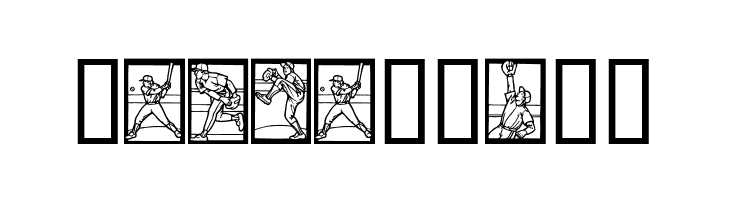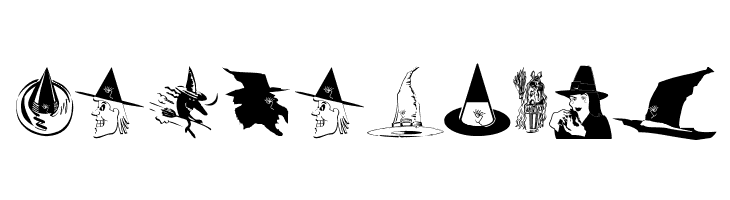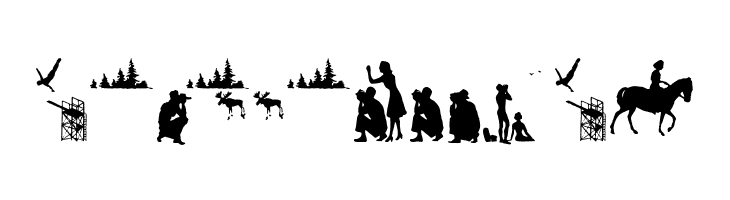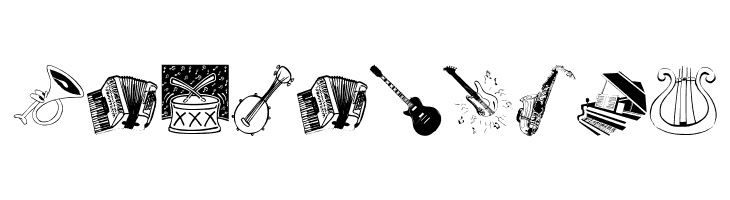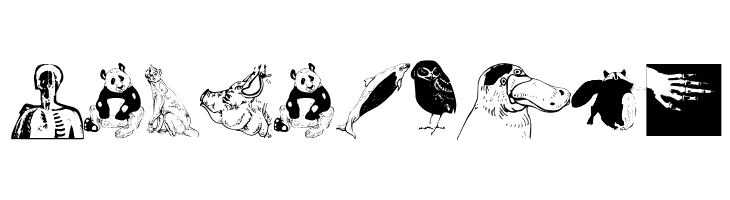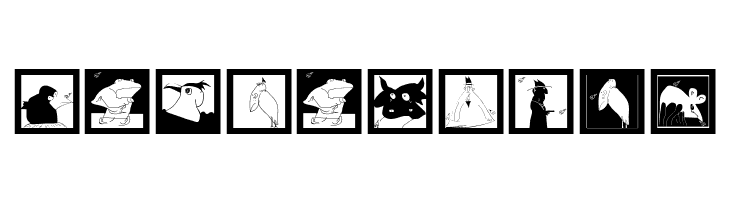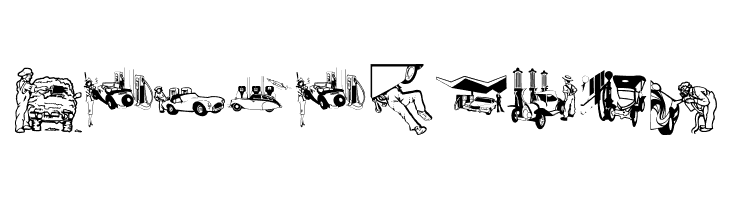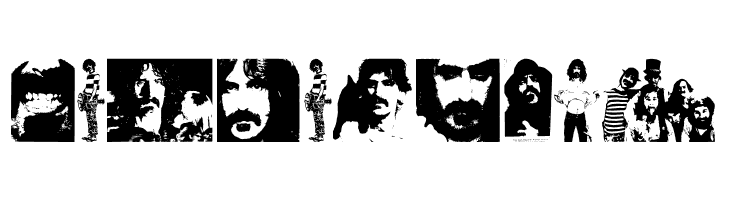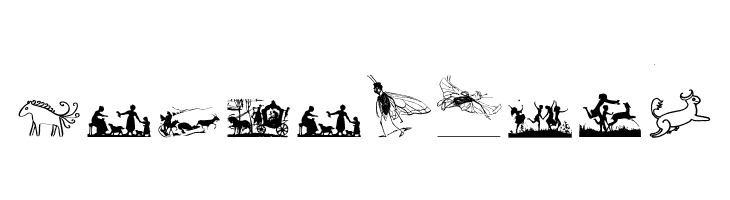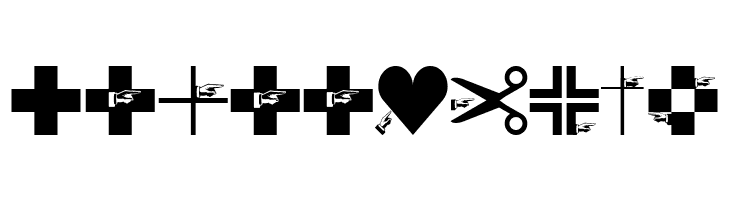
A pictorial font with baseball player illustrations for each character.
A playful, witch-themed pictorial display font.
A pictorial silhouette font with narrative scenes for each character.
A pictorial font featuring diverse animal and insect illustrations as glyphs.
Illustrative font with each character as a unique musical instrument drawing.
An illustrative, pictorial font with each character as a unique drawing.
Playful, illustrated font with animal-themed characters in bold black-and-white.
Illustrative, automotive-themed pictogram font.
A pictorial display font using musician silhouettes for each character.
A playful dingbat font with whimsical, storybook-style illustrations.
A decorative symbol font with diverse geometric and pictorial icons.
Cartoon gangster-themed pictorial display font.
Highly detailed, zigzag-shaded animal illustrations for decorative use.
Ornate font composed of intricate historical illustrations for each character.
A display font with each character depicted as a weapon or military-themed illustration.
A display font featuring unique bird illustrations for each character.
Cartoon illustration font with each glyph as a unique character drawing.
An eclectic dingbat font of abstract, geometric, and pictorial symbols.
Illustrative font featuring religious and spiritual iconography.
Ornamental dingbat set with abstract and animal motifs.
A playful, pictorial font with monkey and animal illustrations and geometric shapes.
Wedding-themed pictorial dingbat font with detailed illustrations.
Cartoonish, artist-themed pictorial font with each character as a unique illustration.
Whimsical fantasy-themed pictorial font with creature silhouettes.
Illustrative, story-driven font with biblical and ancient motifs.
Woodcut-style pictorial dingbat font with detailed illustrations.
Animal-themed decorative font with each glyph as a unique animal silhouette.
Comic-inspired dingbat font with retro illustrations for each character.
Illustrative font using Japanese cultural scenes for each character.
A pictorial font composed of art tool and artist-themed icons.
A pictorial winter-themed display font with hand-drawn illustrations for each character.